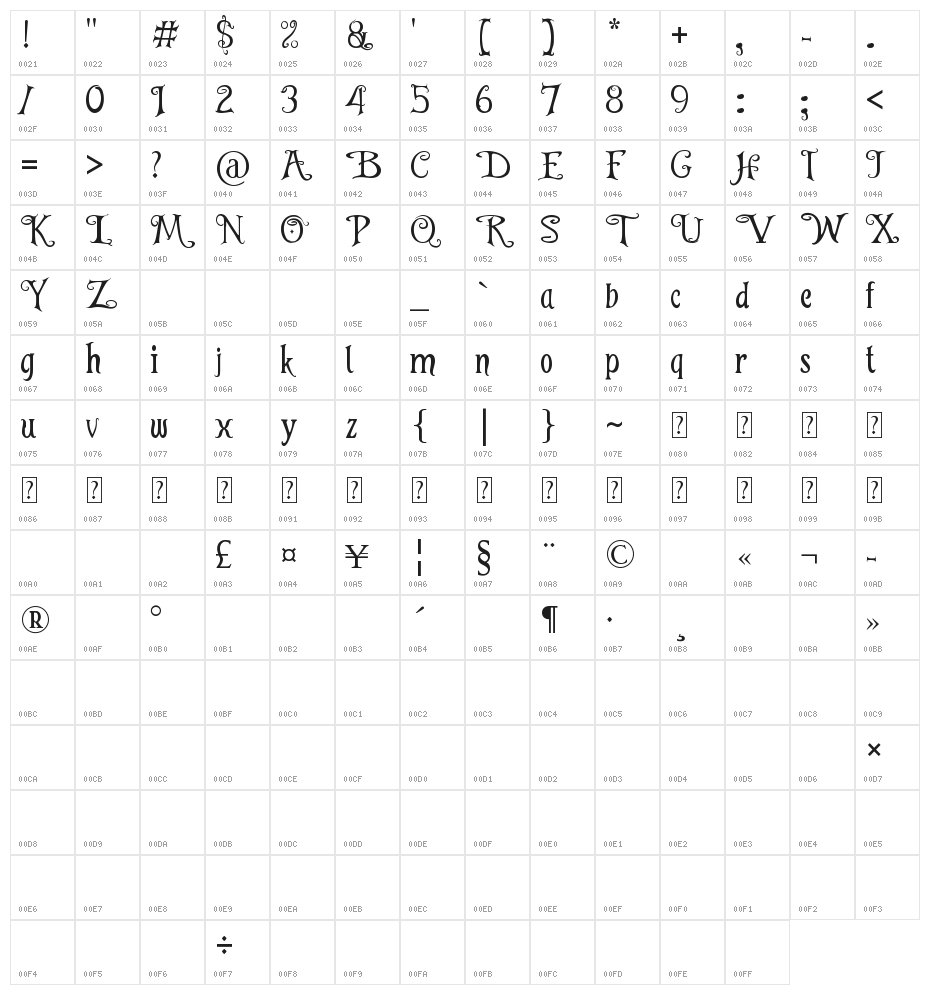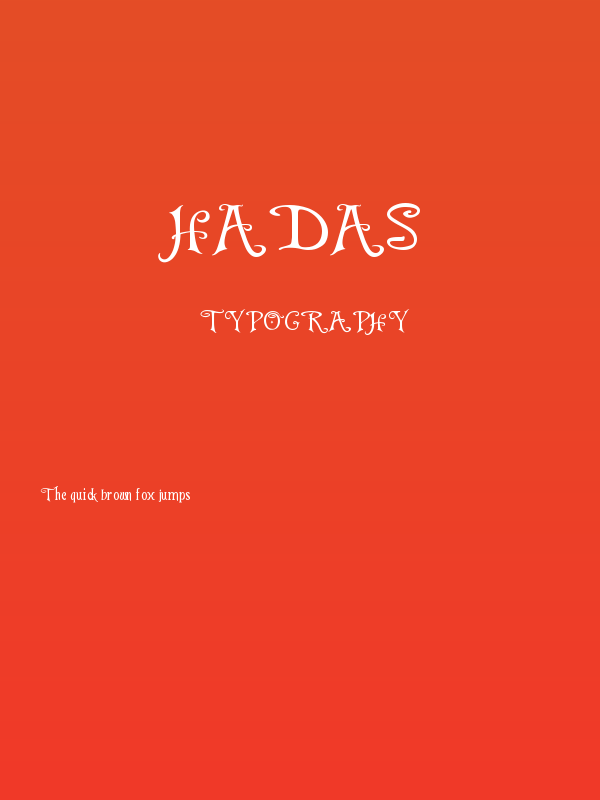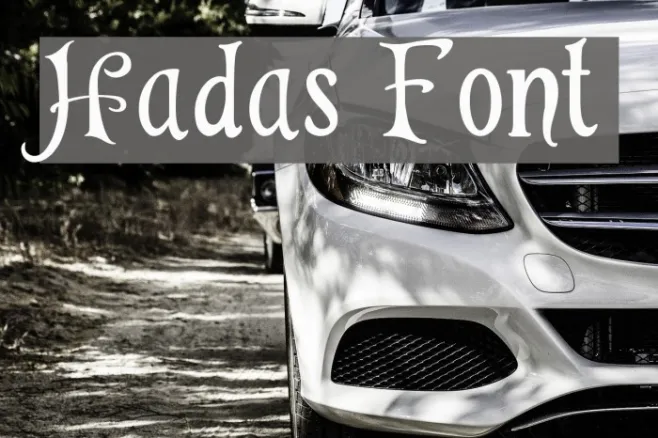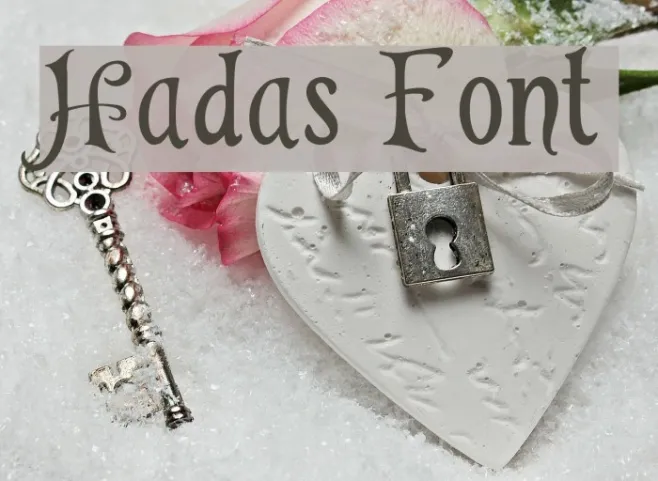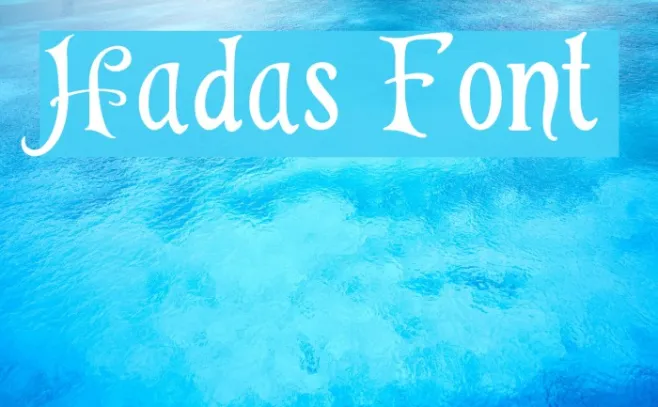
Hadas Font
Hadas Description
This font features a whimsical and decorative style, characterized by its playful curves and unique serifs. The uppercase letters exhibit a distinct flair with exaggerated strokes and ornamental elements, giving them a lively and artistic appearance. The lowercase letters maintain a more consistent and rounded form, providing a nice contrast to the elaborate uppercase. Numbers are bold and slightly condensed, ensuring readability while maintaining the font's overall decorative theme. Special characters are creatively designed, adding to the font's charm and versatility. This font is ideal for projects that require a touch of elegance and creativity, such as invitations, posters, and branding materials.
HADAS UPPERCASE
HADAS LOWERCASE
HADAS OTHER CHARS